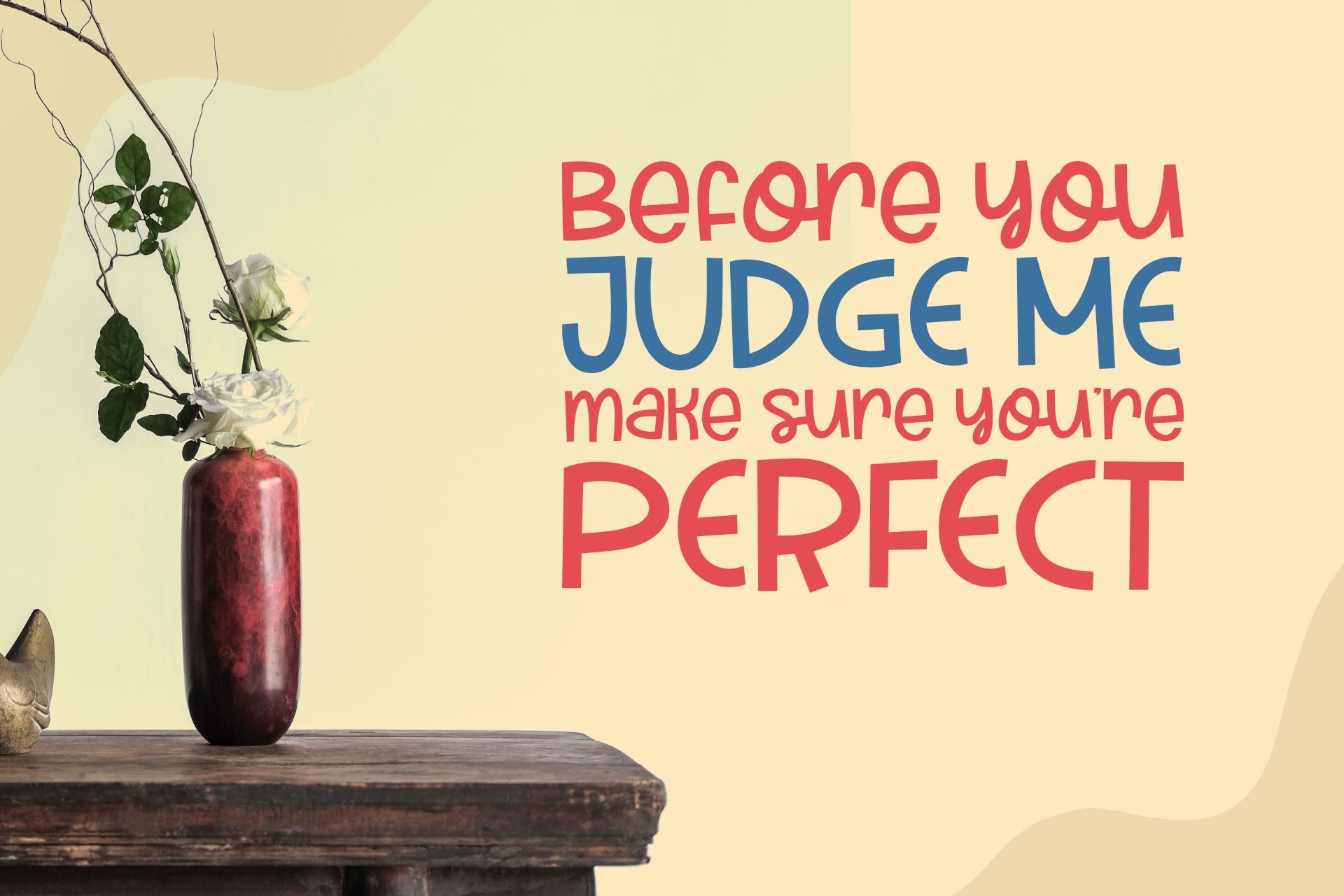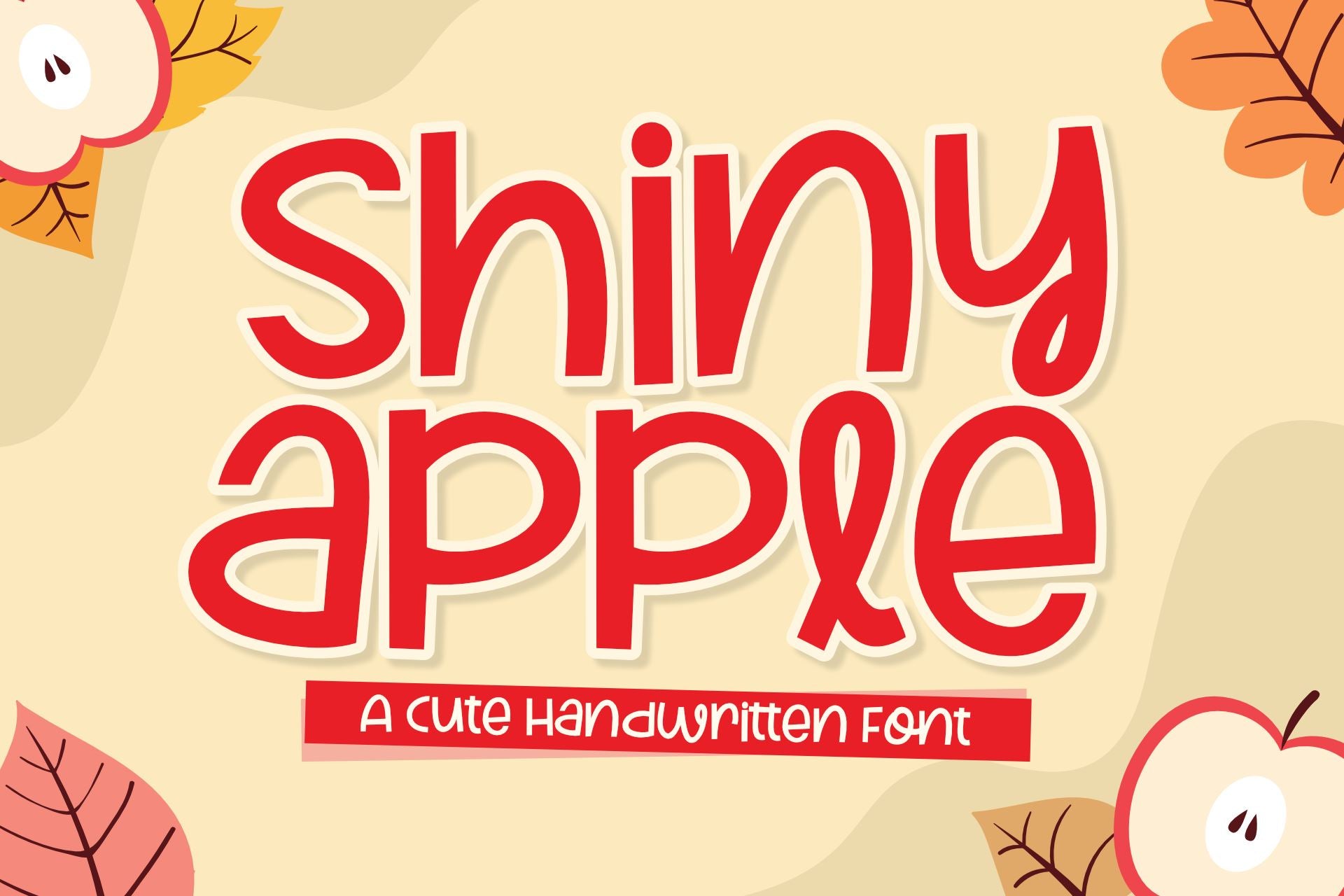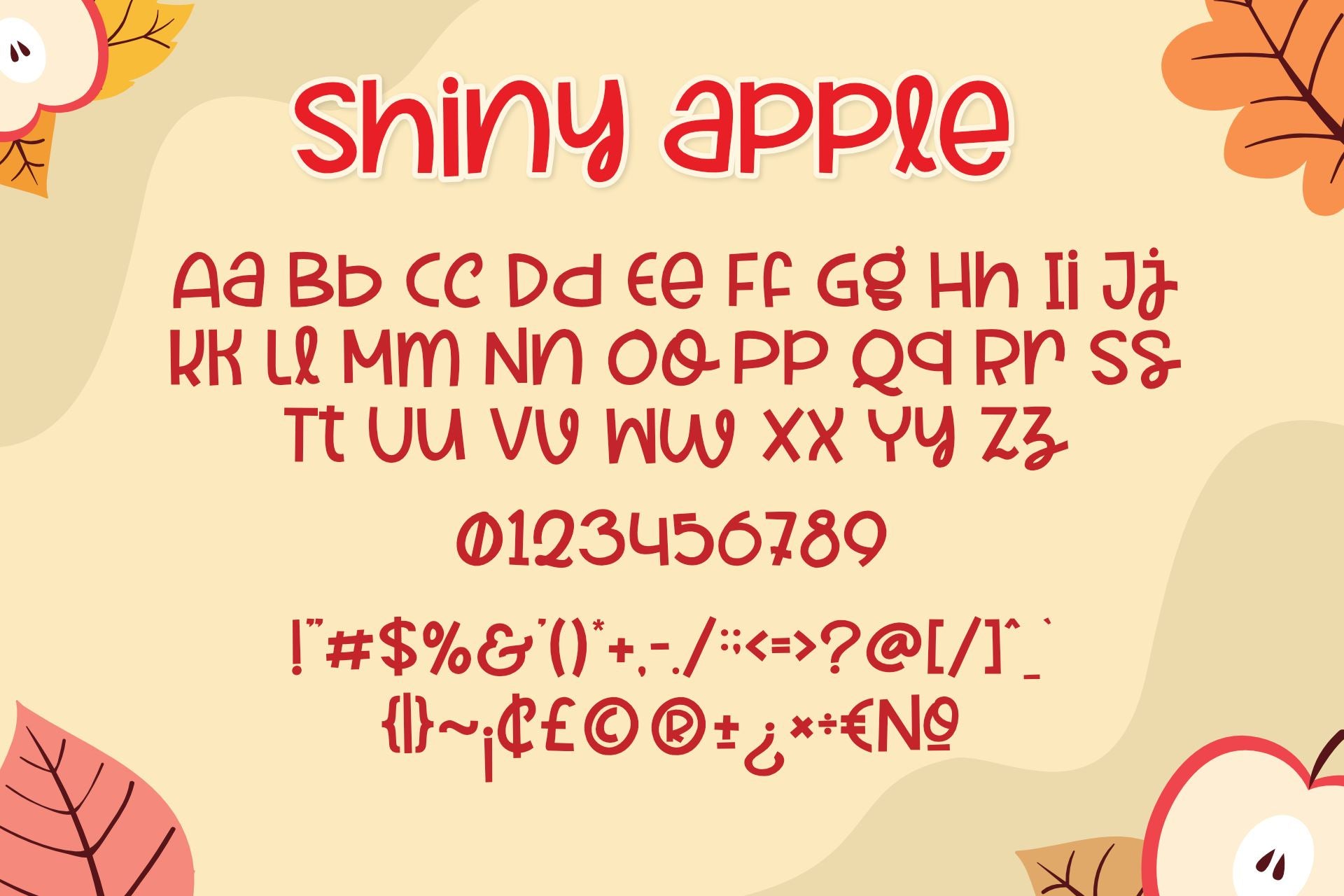
Shiny Apple Font – Free Playful Display Typeface for Kids Projects
The Shiny Apple font is a bright, cheerful, and versatile display typeface perfect for playful design projects. With its rounded edges, bouncy style, and sweet personality, this font captures the imagination and fun of childhood. Whether you’re working on kids’ games, cartoon titles, educational content, or colorful packaging, Shiny Apple adds joy and creativity to every word.
Whimsical and Fun Design
Shiny Apple is designed with a jolly and lively look that instantly creates a sense of fun. The font is full of charm, making it ideal for lighthearted or family-friendly branding. Each character has been crafted to deliver personality, friendliness, and visual appeal, without sacrificing readability.
Ideal Use Cases
This font excels in any project where you want to evoke smiles and excitement. Popular uses include:
- Children’s books and story titles
- Cartoon or animation branding
- Educational materials for early learners
- Game interfaces and in-app text
- Product packaging and snack labels
- Birthday invitations and party decor
Add joy, color, and personality to your next creation with the Shiny Apple font. Perfect for playful and family-oriented designs that shine.